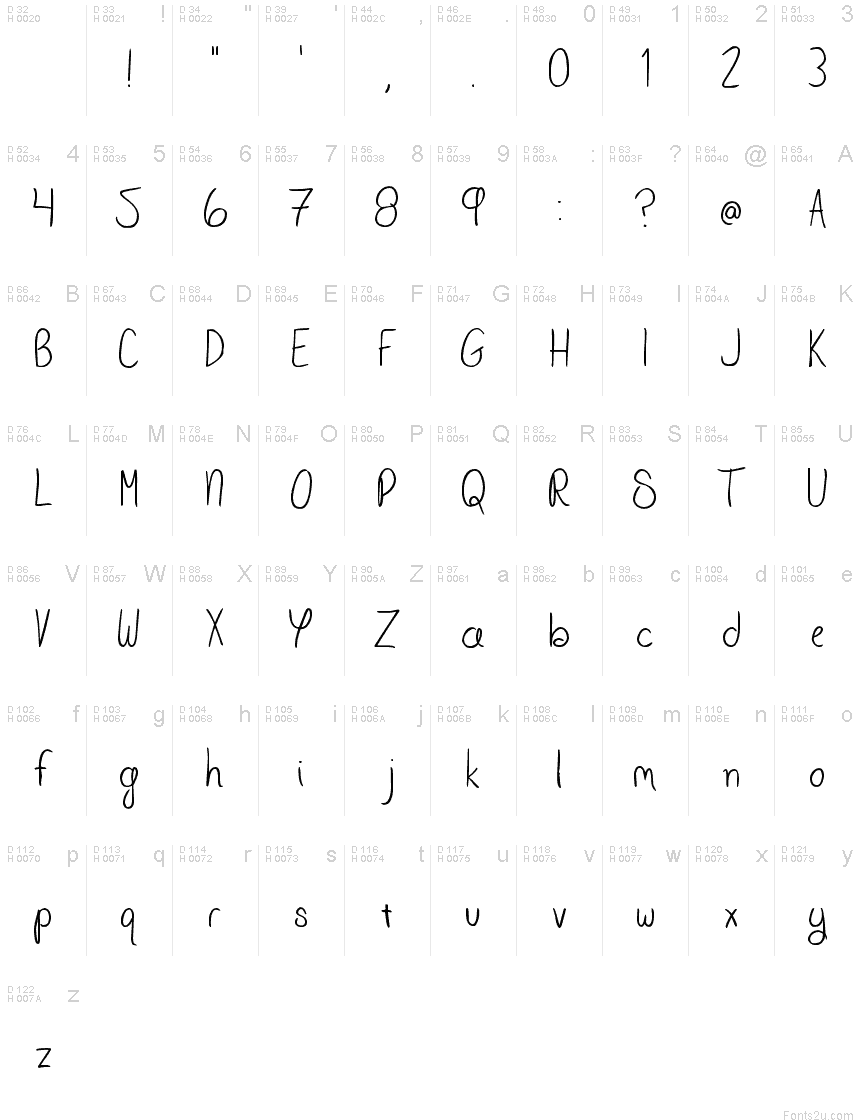
Scranton Fancy by Skyhaven is a free handwritten font with tall, loosely drawn letters and lively shifts in stroke width. Its narrow shapes bend in different directions. Rounded turns and uneven joins recall a quick marker sketch.
It can create an informal storefront voice for neighborhood cafe menus and market signage. The lanky forms also suit comic covers and music merchandise. For small-business branding, the personally drawn look feels especially apt.
Scranton Fancy